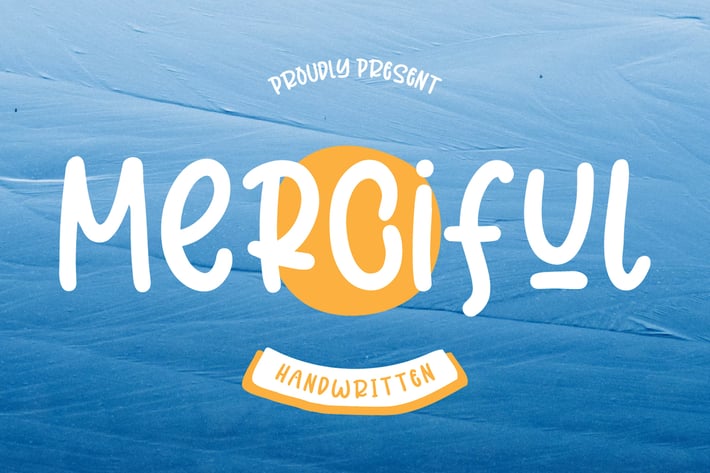
Stylish Modern Display Font
Merciful is a stylish modern display font made to bring sophistication and flair to any creative project. Its unique letterforms and elegant curves make it a standout choice for headlines, branding, fashion promotions, posters, and editorial layouts.
Perfect for designers seeking a blend of style and versatility.
Key Features:
- Eye-catching modern display type
- Stylish curves and sharp structure
- Ideal for fashion, branding, and headlines
- Versatile use in print and digital
- Uppercase & lowercase letters
- Numbers and punctuation
- Multilingual support
Add confidence and personality to your projects with Merciful.